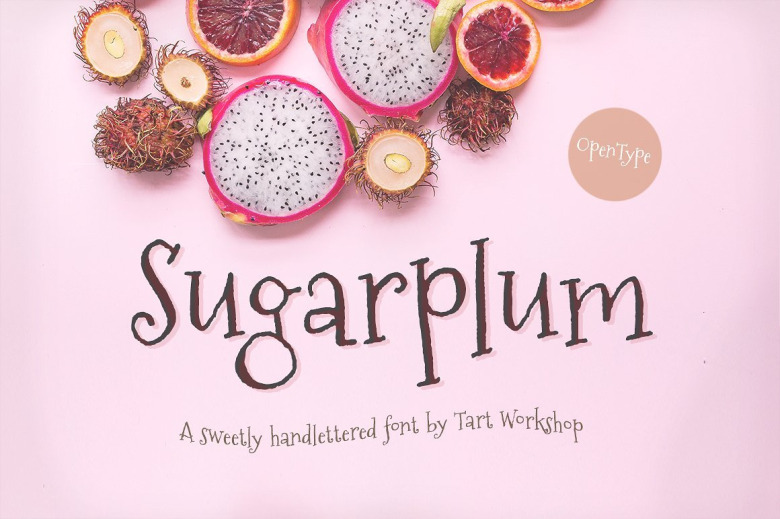
Sugarplum Font
Introducing Sugarplum Font! Sugarplum Font designed by Tart Workshop , this is a premium font, are sold on creativemarket, but it was great, it is free today for download. Let visions of Sugarplum dance in your head with its playful carefree spirit! Use Sugarplum when you want to be nice. The font features a full range of alternate letterforms and automatic ligatures available in dynamic OpenType.